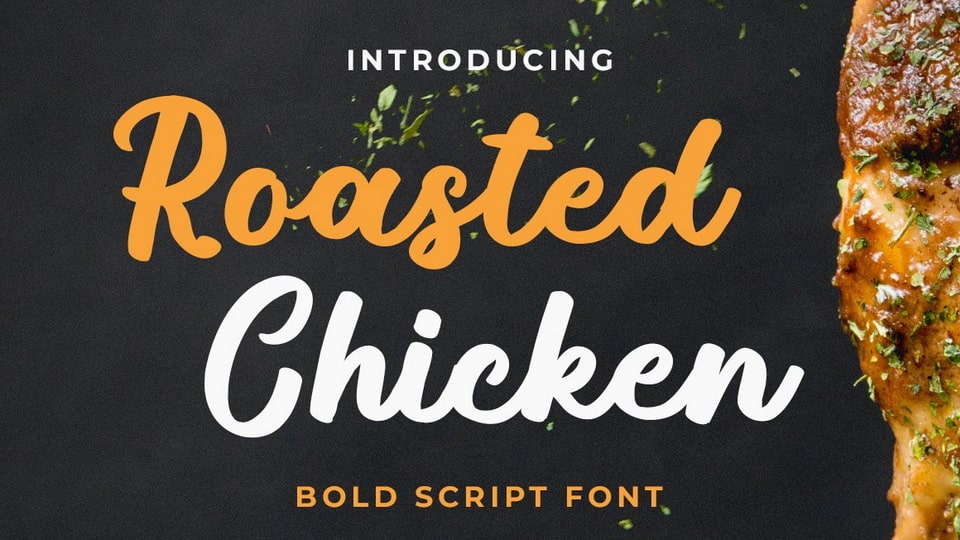
Download Roasted Chicken font, a beautiful calligraphy typeface with elegant and bold characters. This font is suitable for t-shirt designs, logotype, branding, quotes, social media, watermarks, clothing, Youtube videos.